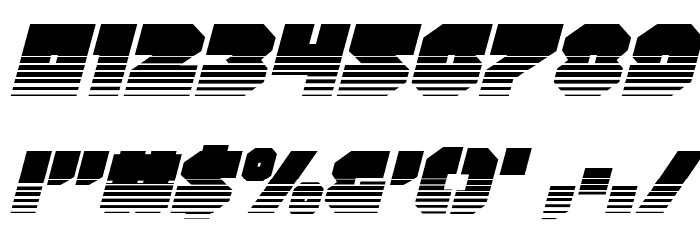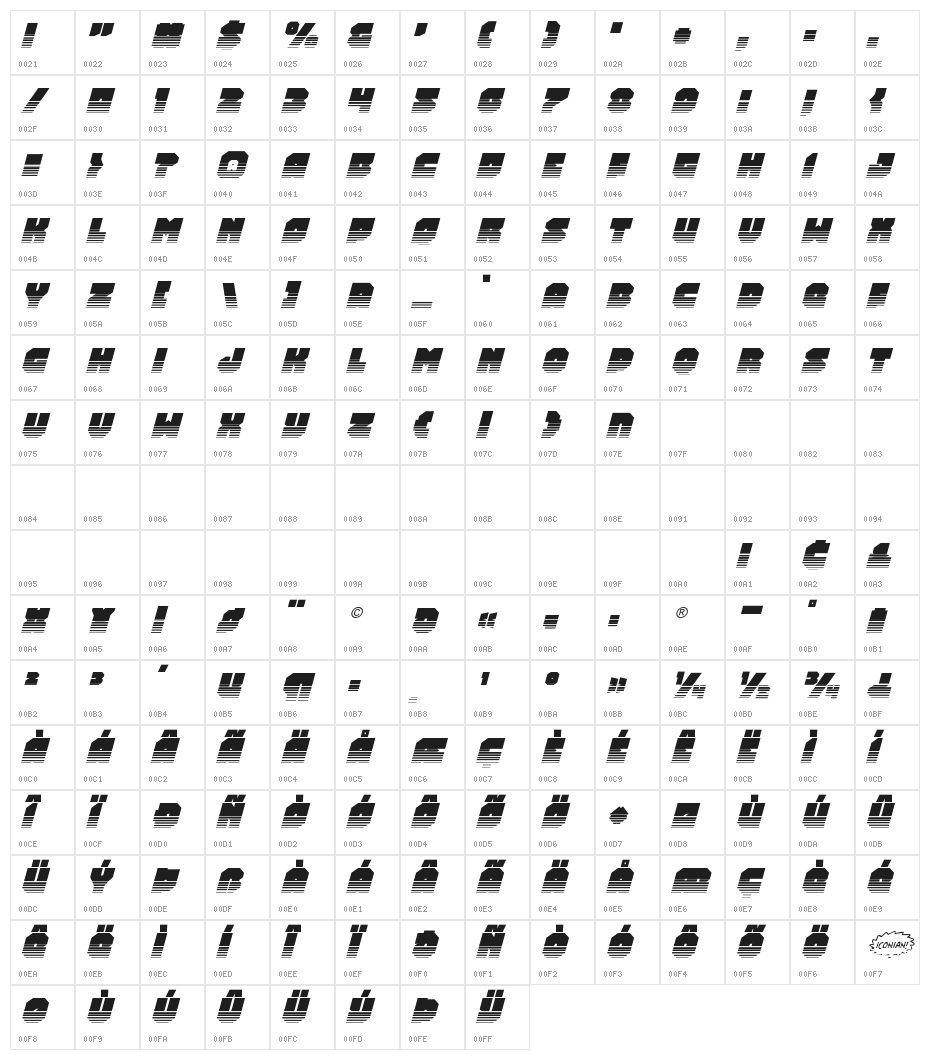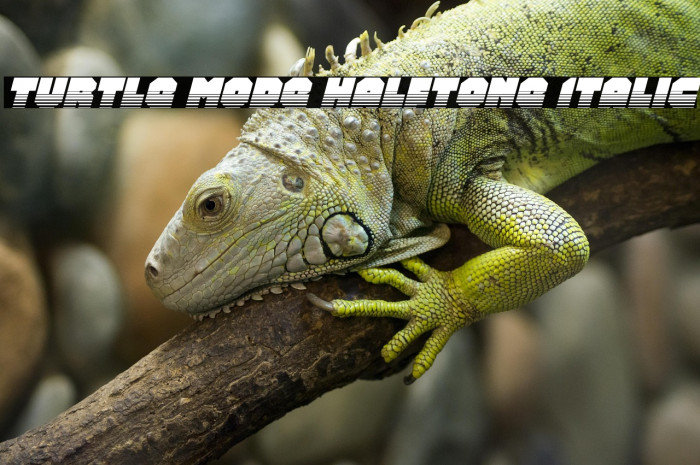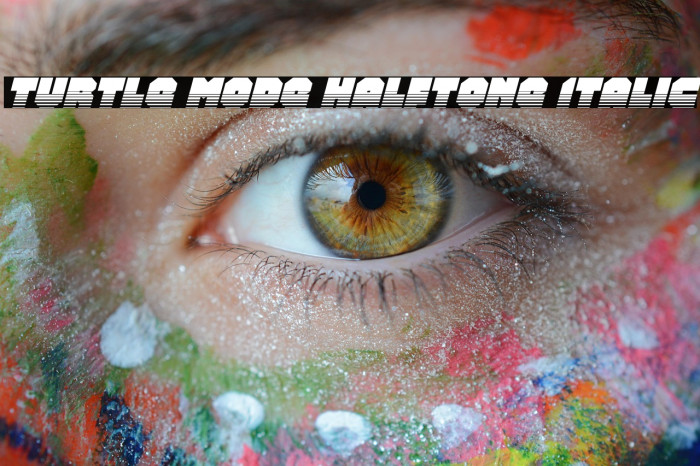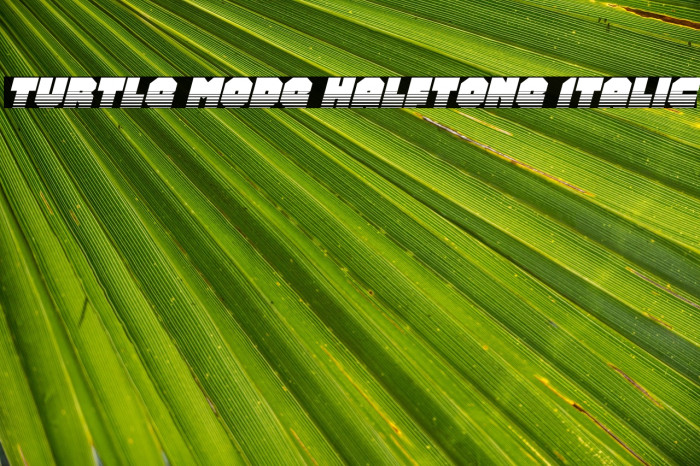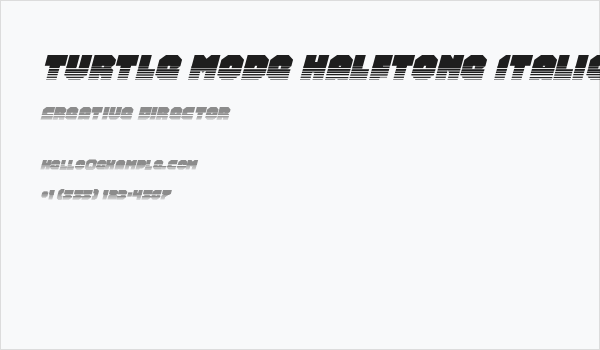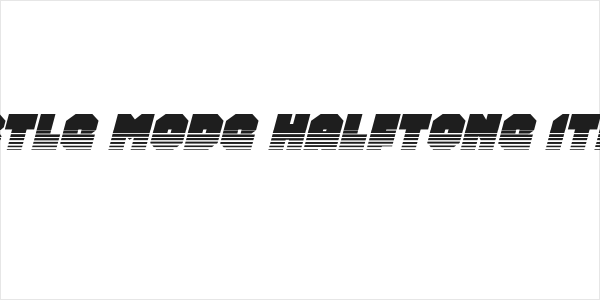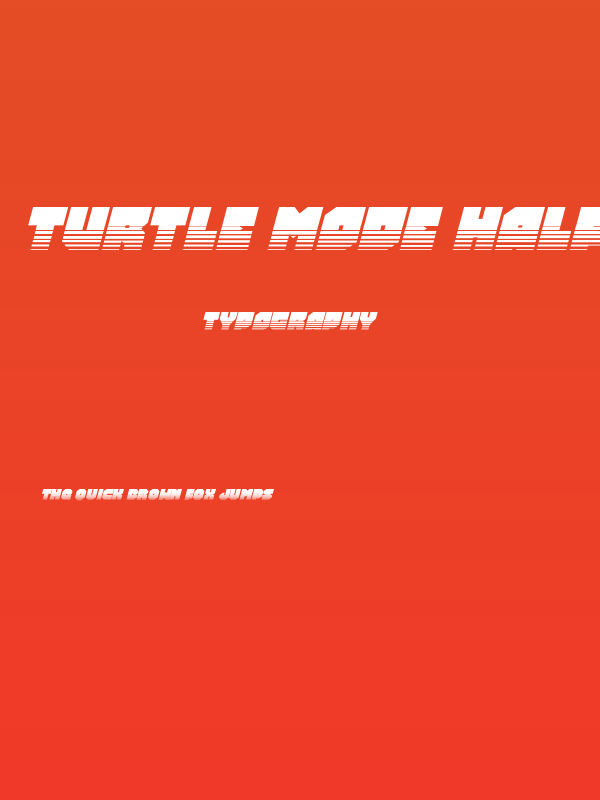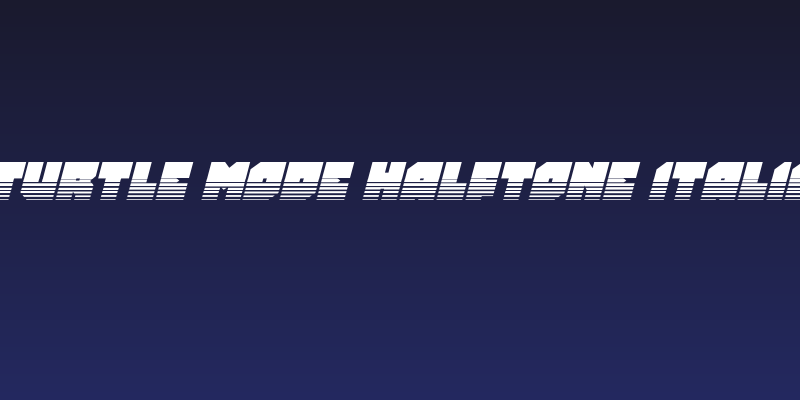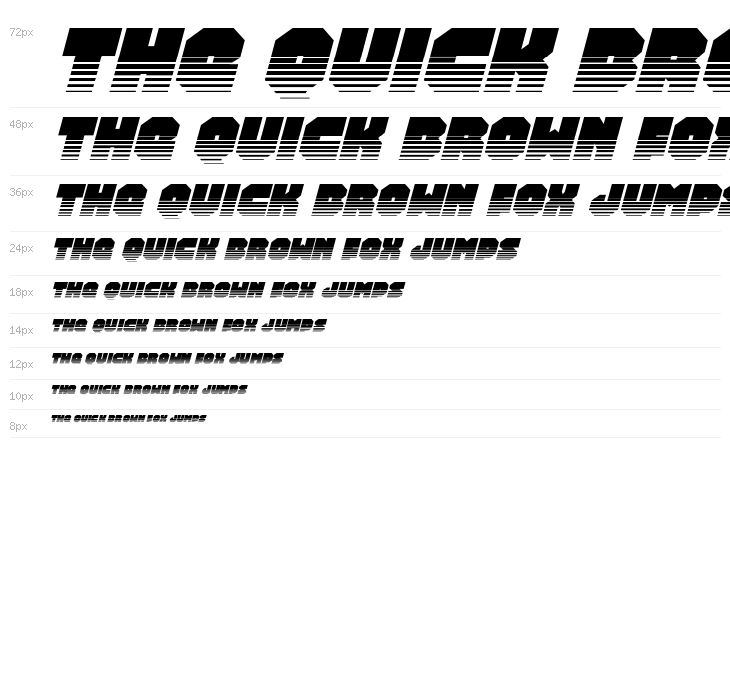
Turtle Mode Halftone Italic Font
Turtle Mode Halftone Italic Description
This font features a bold, italicized style with a distinctive halftone effect, creating a dynamic and futuristic appearance. The characters are composed of horizontal lines that gradually fade, giving a sense of motion and depth. The uppercase and lowercase letters maintain a consistent design, with sharp angles and a geometric structure. The numbers and special characters follow the same stylistic approach, ensuring uniformity across all glyphs. This font's unique aesthetic makes it stand out, perfect for projects that require a modern and edgy look.
| Overall Style | Futuristic, Modern |
| Proposed Projects | Ideal for sci-fi themed posters, video game titles, modern branding, and digital artwork. |